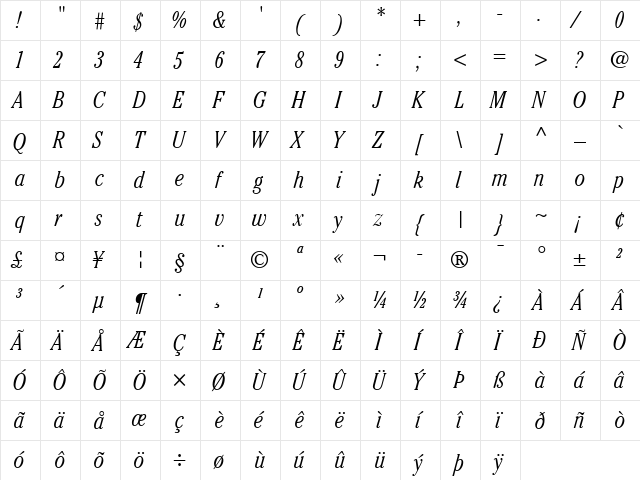
ITCCheltenham LT LightCond Italic Font Preview
Design Context for ITCCheltenham LT LightCond Typeface
ITCCheltenham LT LightCond takes a measured approach to typography — its balanced proportions and neutral character make it a reliable workhorse for both digital and print work. The slanted form adds forward momentum and visual energy. The delicate stroke weight brings airiness and refinement to layouts. Its narrow stance lets it pack a punch even in space-constrained designs.
Pro Tip: Use ITCCheltenham LT LightCond for emphasis, pull quotes, and subheadings where its slanted energy can add rhythm to the layout.